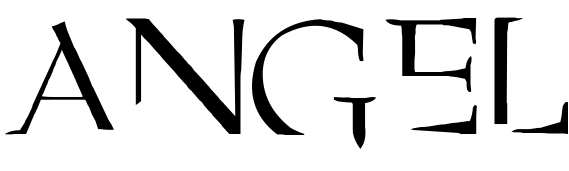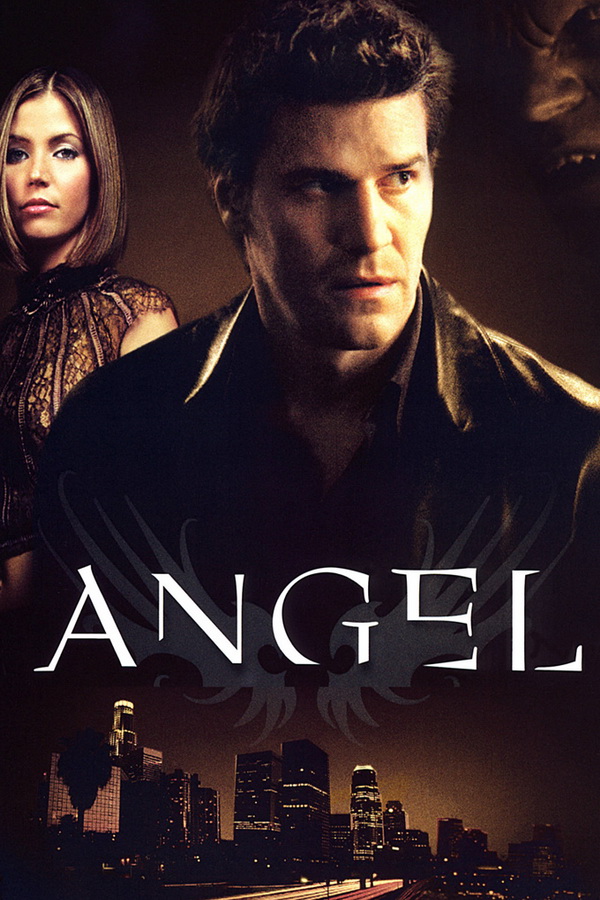
Angel [TV Show] Font
FantasyAngel is a spin-off of the popular TV series Buffy the Vampire Slayer, following the vampire Angel as he helps the helpless and fights against evil in Los Angeles.
The logo of the TV series "Angel" bears a striking resemblance to Angel designed by Julial. The font is limited to capital letters and some punctuation marks and is available for free download in the Fonts Used Section.